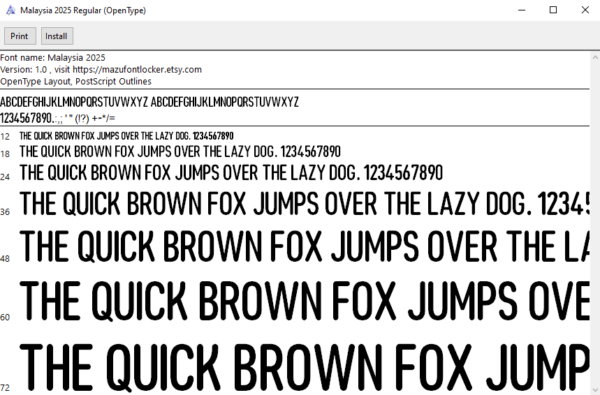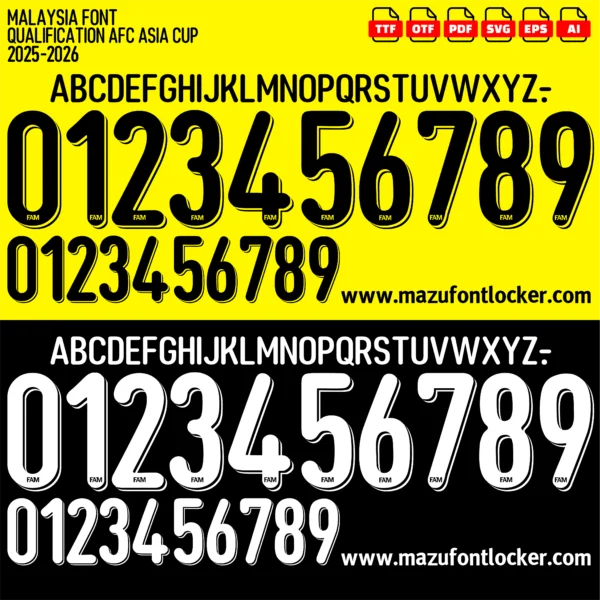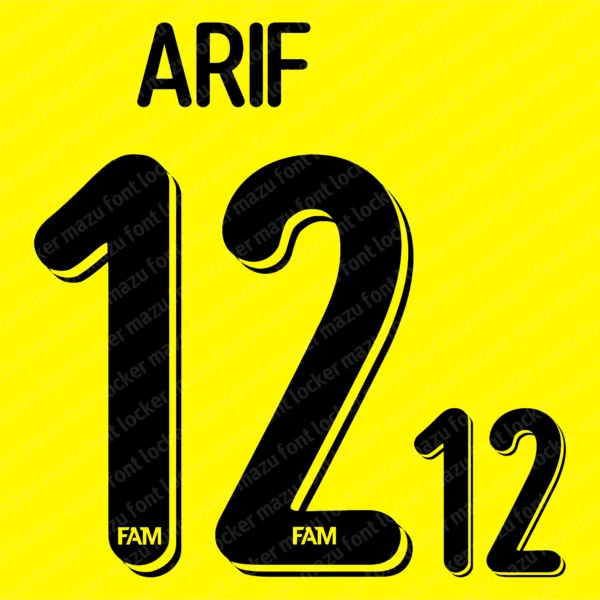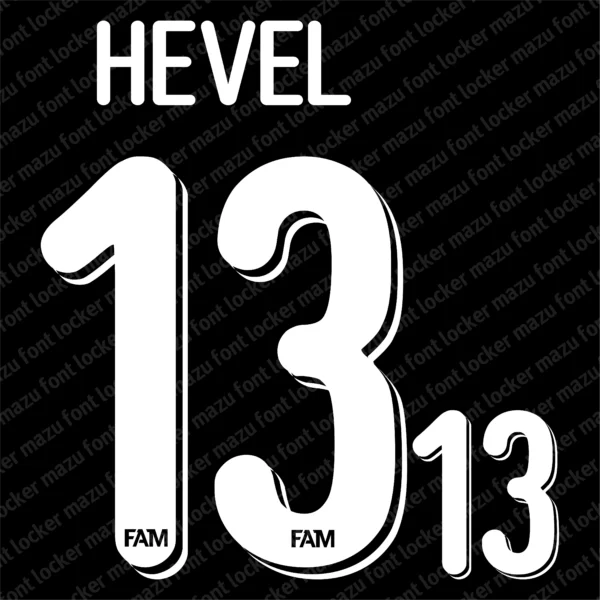
Malaysia 2025 Font Vector – Epic Harimau Malaya Triumphant Glory
This premium font captures the commanding, iconic, majestic, and battle-ready lettering that embodies the unstoppable Malaysian spirit — delivering raw Jalur Gemilang fire, explosive winning energy, relentless never-say-die mentality, tactical supremacy, and legendary Harimau Malaya warrior grit.
Malaysia 2025 Font Vector – Authentic Harimau Malaya Typeface
The Malaysia 2025 Font Vector is a premium typeface that accurately recreates the official match lettering worn by the Malaysian National Team during the 2025 season. This high-quality vector font kit captures the bold, fierce, and patriotic typography that represents the spirit of Harimau Malaya, fighting determination, and growing football excellence of Timnas Malaysia.
Designed for professional designers and passionate Malaysian supporters, the Malaysia 2025 Font Vector delivers perfect authenticity for creating realistic jersey mockups, fan merchandise, matchday posters, social media graphics, and Southeast Asian football content. It pairs beautifully with the iconic green and yellow Malaysia kit, one of the most recognizable national team identities in Asian football.
Why Choose Malaysia 2025 Font Vector
This font stands out because of its sharp vector precision and strong national identity. Every letter and number is crafted to match the exact style used on the players’ shirts during Malaysia’s 2025 campaign. Whether you are creating realistic kit templates or exciting Harimau Malaya-themed content, the Malaysia 2025 Font Vector gives your designs that authentic Bukit Jalil National Stadium atmosphere.
The letterforms in the Malaysia 2025 Font Vector are bold, clean, and highly readable. The strokes feature elegant geometric construction combined with modern athletic styling and traditional Malaysian strength, creating a professional appearance that stands out on jerseys while preserving the nation’s football heritage and competitive spirit.
The numerals feature strong curves and sharp, precise edges, delivering a confident and premium appearance. This vector design ensures flawless scalability and excellent legibility across both print and digital applications.
• Full uppercase A–Z and numbers 0–9 in authentic Malaysia 2025 style
• Create highly realistic Malaysia 2025 jersey mockups with accurate lettering
• Produce custom Harimau Malaya merchandise with the official 2025 aesthetic
• Includes the exact crest glyph placement used beneath player numbers